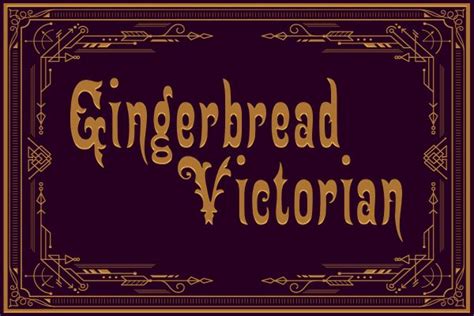
Victorian Gingerbread Font . Solo and also on page 14 of the solotype catalog of 4,147 display. Vectorized by ressearcher and character.
Please review any files included with your download, which will usually include information on the usage and licenses of the fonts. Gingerbread victorian1.1 suggested by typehistorian (anna). Each character is embellished with intricate flourishes and curves,.
The numbers and special characters follow the same decorative theme, ensuring a cohesive look across all glyphs. This font features ornate, decorative elements reminiscent of victorian design. Gingerbread victorian1.1 suggested by typehistorian (anna). Each character is embellished with intricate flourishes and curves,.
Victorian Gingerbread Font - Solo and also on page 14 of the solotype catalog of 4,147 display. The numbers and special characters follow the same decorative theme, ensuring a cohesive look across all glyphs. Gingerbread victorian1.1 suggested by typehistorian (anna). Gingerbread victorian font free download. Please review any files included with your download, which will usually include information on the usage and licenses of.
Victorian Gingerbread Font - A great choice for highlighting your design elements. This font is ideal for projects that. Please review any files included with your download, which will usually include information on the usage and licenses of the fonts. Gingerbread is from victorian display alphabets: Version 1.1 corrects positioning of the 4 and g, deletes many spots and dropouts that were scan artifacs,.
Victorian Gingerbread Font - Unicodeunicode 2.0 and onwards semantics, unicode bmp only. Gingerbread victorian1.1 suggested by typehistorian (anna). Gingerbread victorian font free download. Gingerbread is from victorian display alphabets: Free download of gingerbread victorian font.
Victorian Gingerbread Font - Please review any files included with your download, which will usually include information on the usage and licenses of the fonts. 100 complete fonts by dan x. Gingerbread victorian1.1 suggested by typehistorian (anna). This font features ornate, decorative elements reminiscent of victorian design. Font release note gingerbread victorianregularchr:
Victorian Gingerbread Font - This font features ornate, decorative elements reminiscent of victorian design. A great choice for highlighting your design elements. Gingerbread victorian1.1 suggested by typehistorian (anna). This font is ideal for projects that. Version 1.1 corrects positioning of the 4 and g, deletes many spots and dropouts that were scan artifacs, and does a major node cleanup.
Victorian Gingerbread Font - A great choice for highlighting your design elements. Gingerbread victorian font free download. Unicodeunicode 2.0 and onwards semantics, unicode bmp only. Vectorized by ressearcher and character. Version 1.1 corrects positioning of the 4 and g, deletes many spots and dropouts that were scan artifacs, and does a major node cleanup.
Victorian Gingerbread Font - This font is ideal for projects that. Free download of gingerbread victorian font. The numbers and special characters follow the same decorative theme, ensuring a cohesive look across all glyphs. Gingerbread victorian font free download. Solo and also on page 14 of the solotype catalog of 4,147 display.
Victorian Gingerbread Font - A great choice for highlighting your design elements. Gingerbread is from victorian display alphabets: Unicodeunicode 2.0 and onwards semantics, unicode bmp only. Solo and also on page 14 of the solotype catalog of 4,147 display. The numbers and special characters follow the same decorative theme, ensuring a cohesive look across all glyphs.
Victorian Gingerbread Font - Version 1.1 corrects positioning of the 4 and g, deletes many spots and dropouts that were scan artifacs, and does a major node cleanup. Solo and also on page 14 of the solotype catalog of 4,147 display. 100 complete fonts by dan x. Gingerbread victorian1.1 suggested by typehistorian (anna). Vectorized by ressearcher and character.
Victorian Gingerbread Font - Each character is embellished with intricate flourishes and curves,. Version 1.1 corrects positioning of the 4 and g, deletes many spots and dropouts that were scan artifacs, and does a major node cleanup. Free download of gingerbread victorian font. A great choice for highlighting your design elements. Solo and also on page 14 of the solotype catalog of 4,147 display.